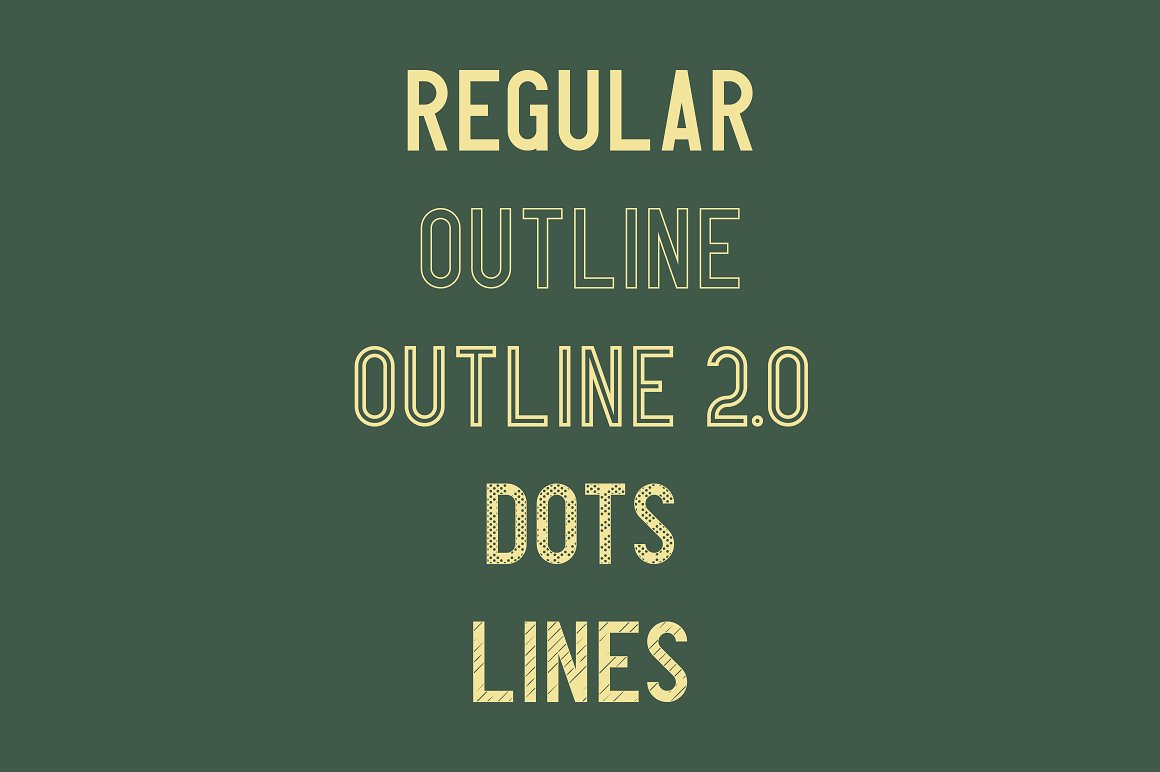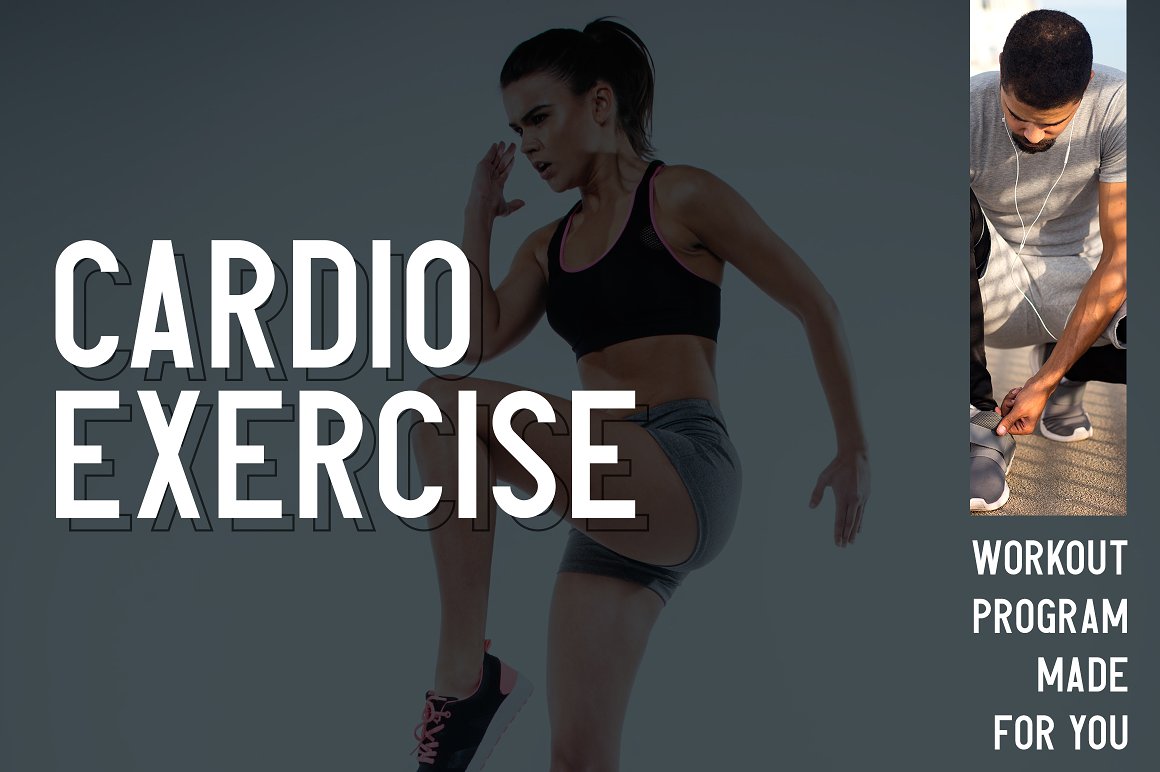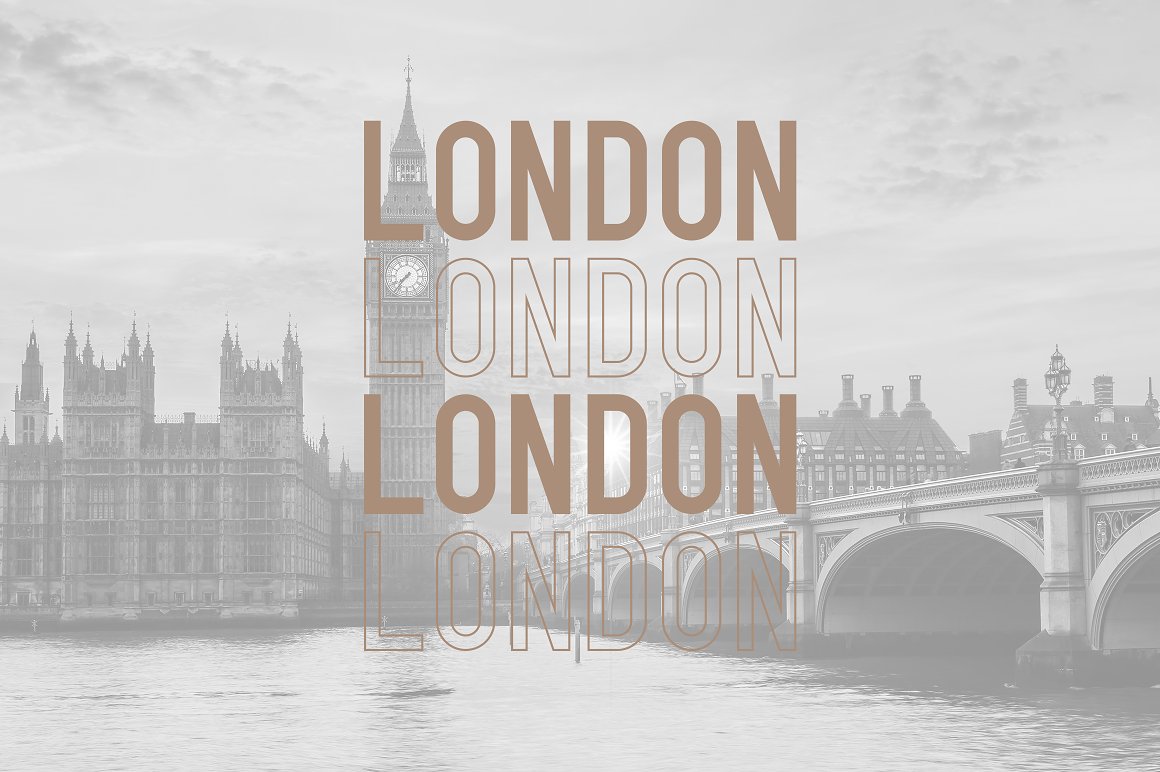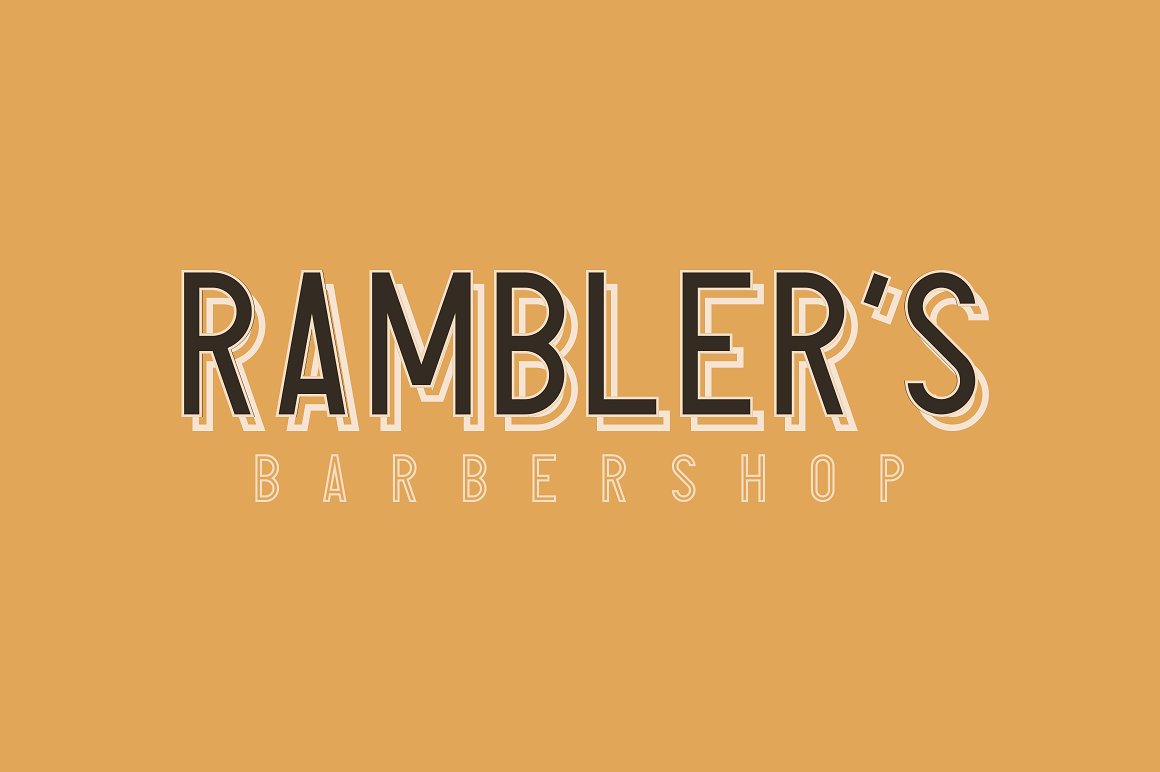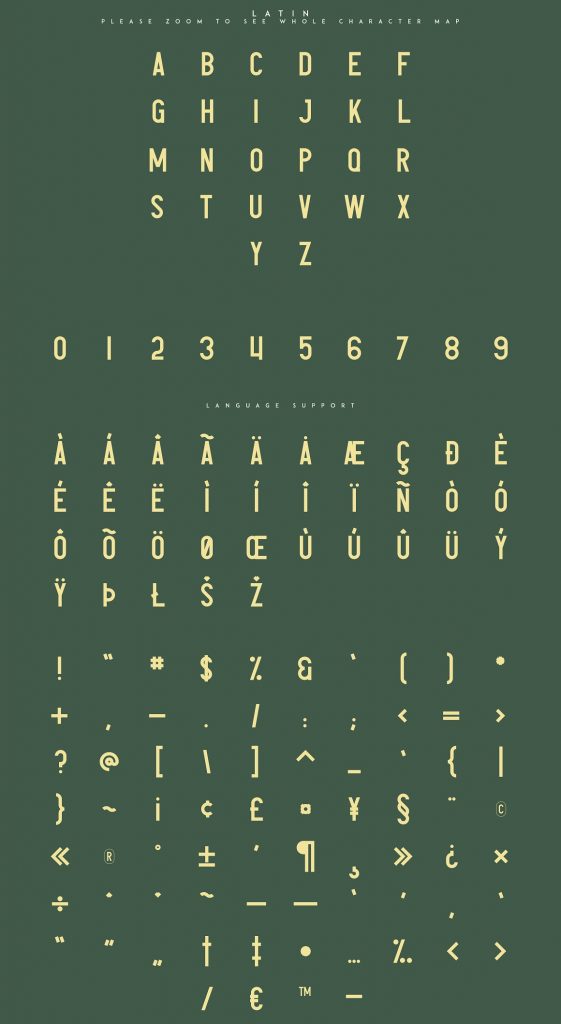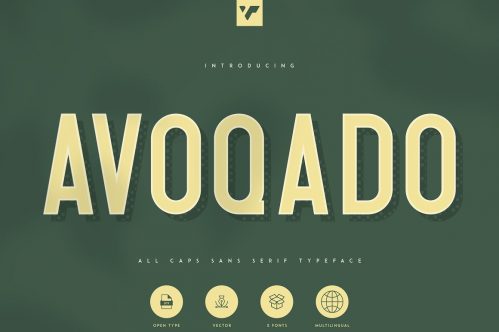
Introducing Avoqado – All Caps Sans Serif Typeface
Avoqado is retro, bold typeface loaded with 5 different styles. Very versatile font that works great in large and small sizes.
Avoqado is perfect for branding projects, home-ware designs, product packaging, magazine headers – or simply as a stylish text overlay to any background image.
Uppercase, numeral, punctuation & Symbol
Regular
Outline
Outline 2.0
Dots
Lines
Multilingual support